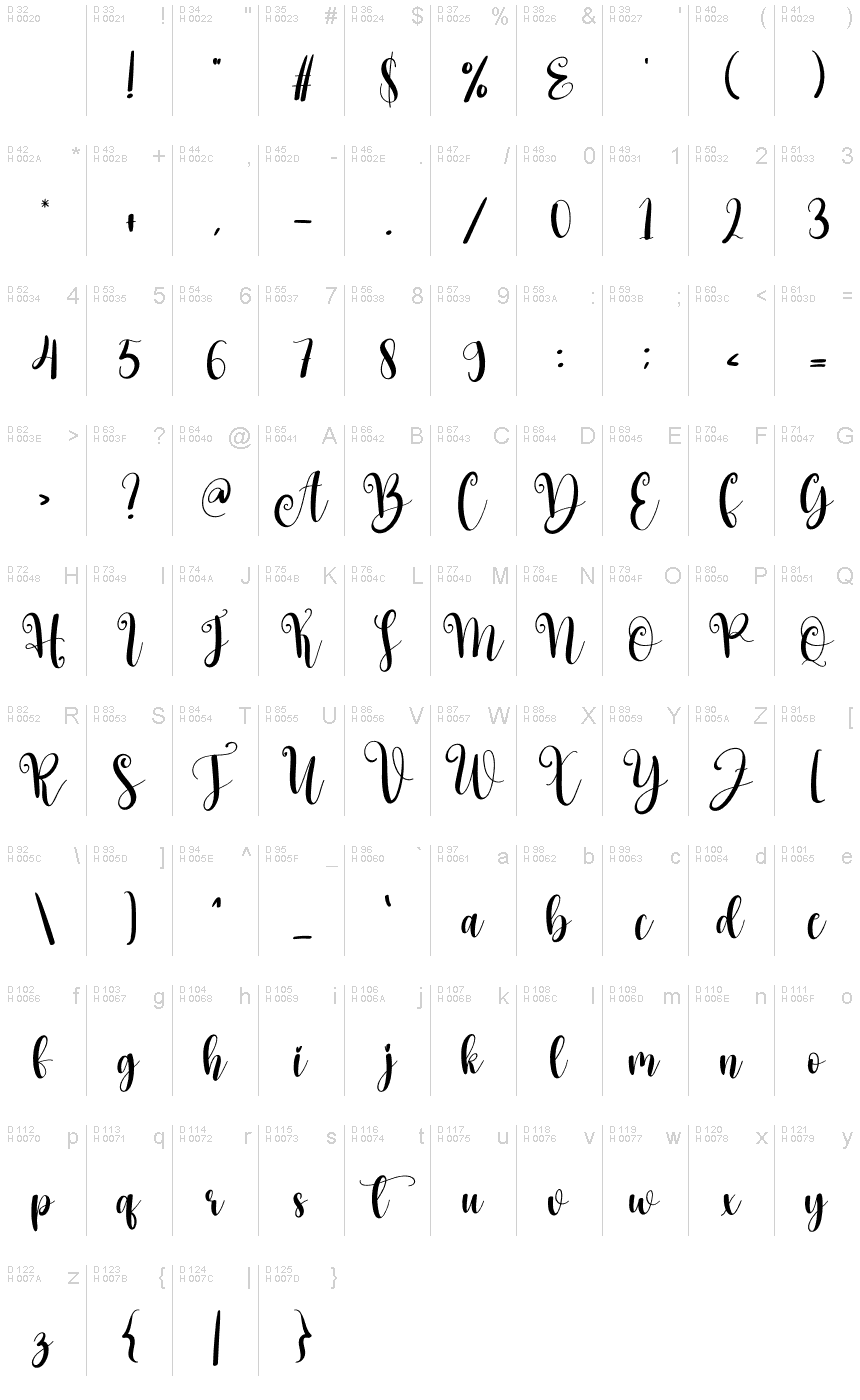
Milksake
Milksake, the modern calligraphy font designed by scratchones, offers a delightful blend of elegance and playfulness. Its flowing curves and swooping strokes make it an excellent choice for projects that require a touch of whimsy, such as invitations or greeting cards. The semi-bold font is versatile enough to be used for headlines or body text in websites or blogs, while the wide width makes it perfect for creating bold statements in posters or signage. Add a dash of creativity to your designs with Milksake!
the latest style letters are perfect for wall displays, wedding invitations, social media post logos, advertisements, product packaging, product designs, labels, photography, watermarks, invitations, stationery, and any project that requires taste handwriting.